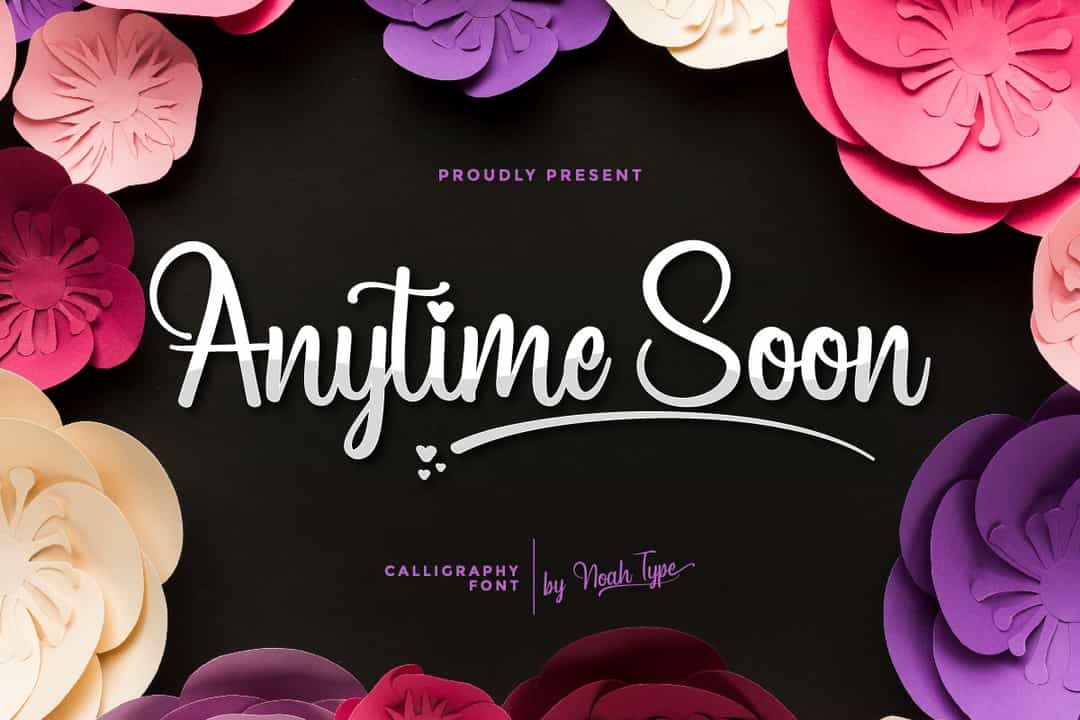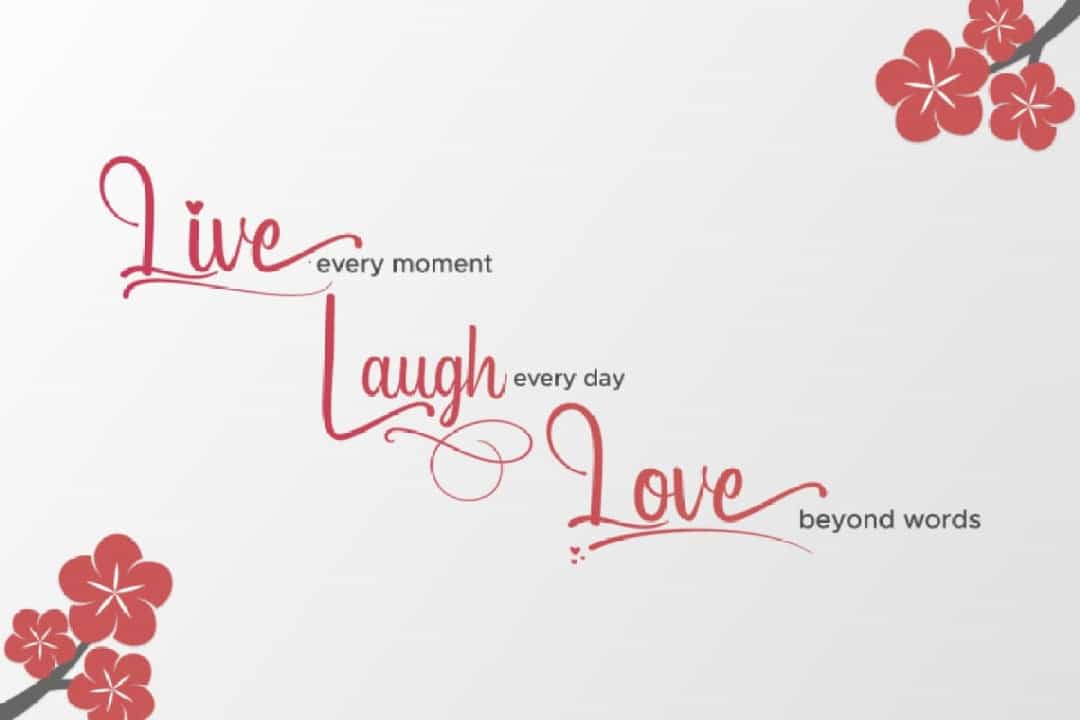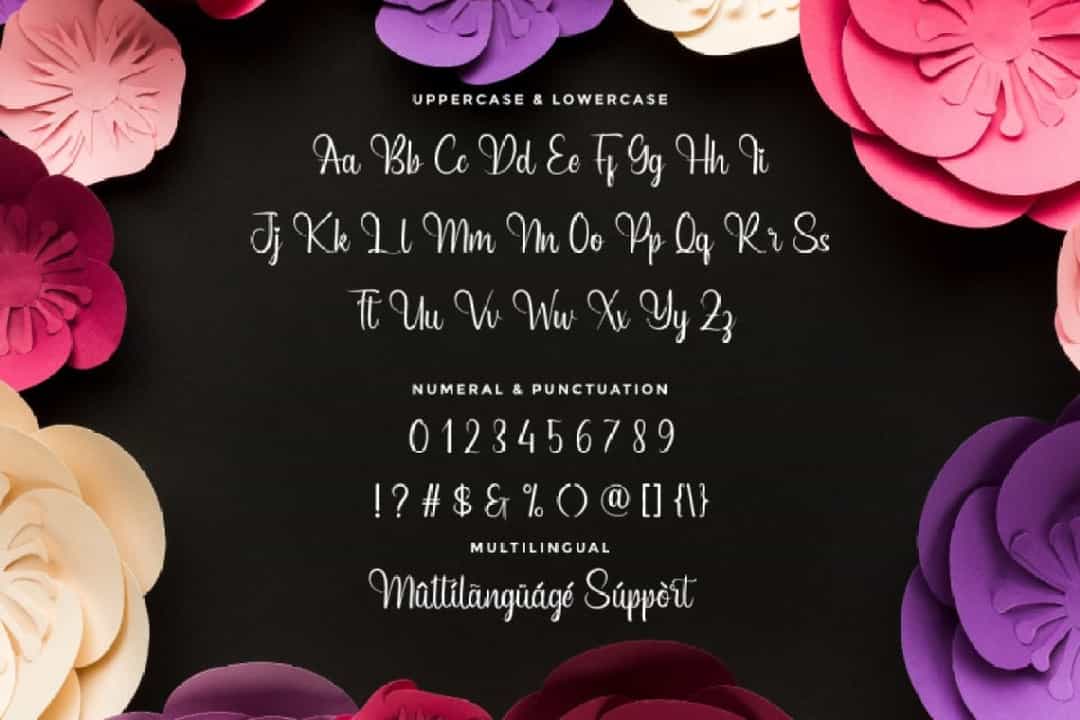
Anytime Soon is an elegant calligraphy font script featuring sophisticated characters, chic Swash, and beautiful alternatives. Perfect for invitations, luxury branding campaigns, fashion promotions as well as song tittles – Anytime Soon Font has been meticulously designed to appear authentically like handwritten script while creating the ideal glyph for each character in every use case. When we create fonts, our goal is to achieve a fluidity so natural it gives an impression of natural flow upon its usage in future designs.